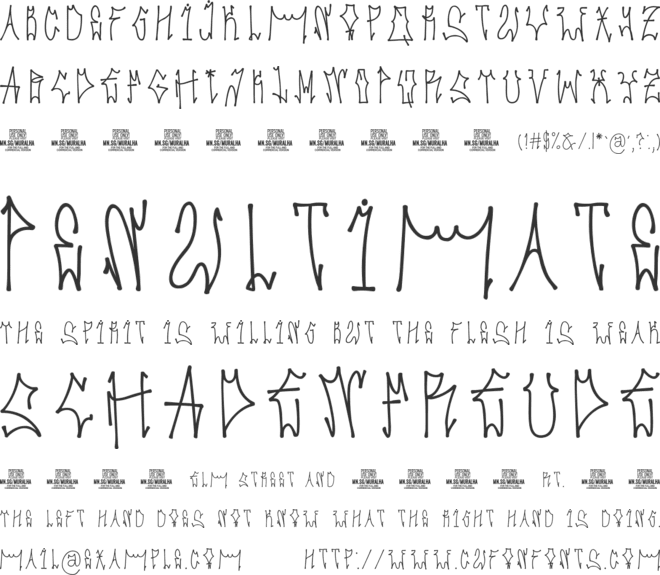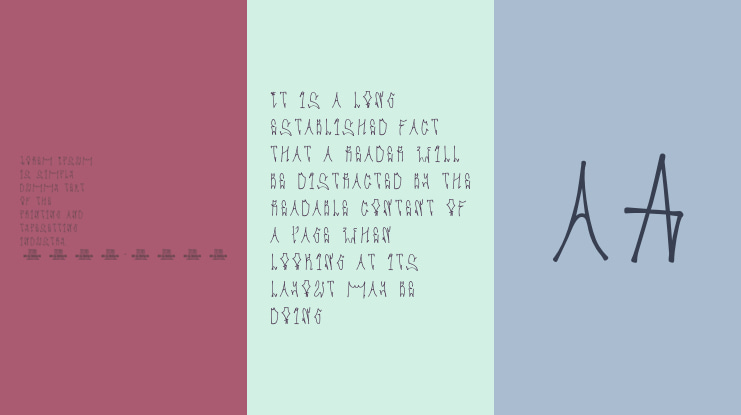
Muralha PERSONAL USE Font
NOTE: This font is for PERSONAL USE ONLY!To purchase a commercial license, visit:https://www.mansgreback.com/product/muralhaMuralha is an expressive graffiti font inspired by hand-drawn tags, scorched surfaces, and walls that carry stories. Its shapes stretch and compress naturally, inspired by Brazilian pixação street art. Decorative marks and subtle irregularities add true gritty character.For questions, please visit https://mansgreback.com/faq